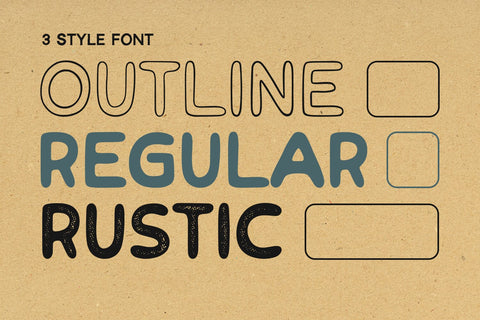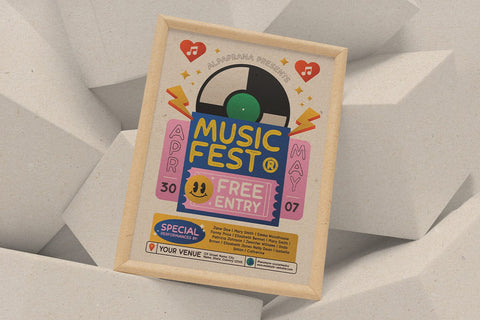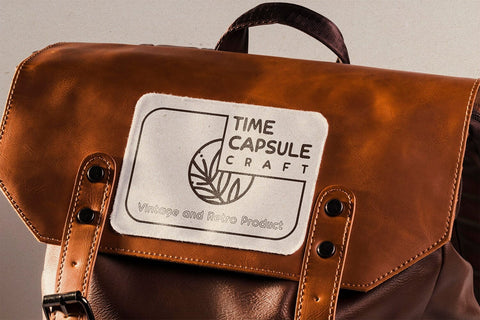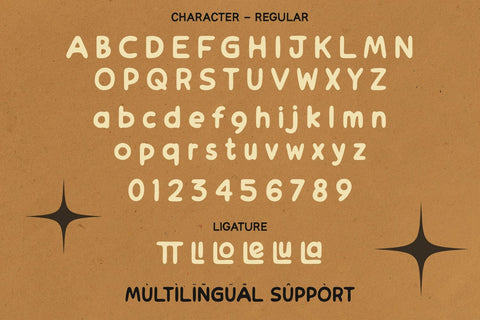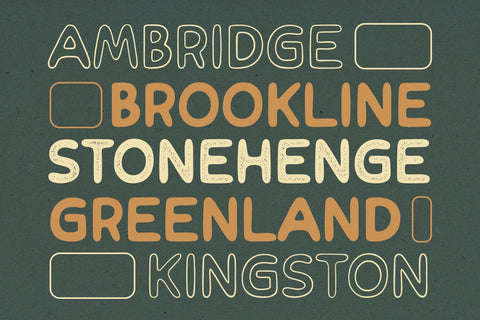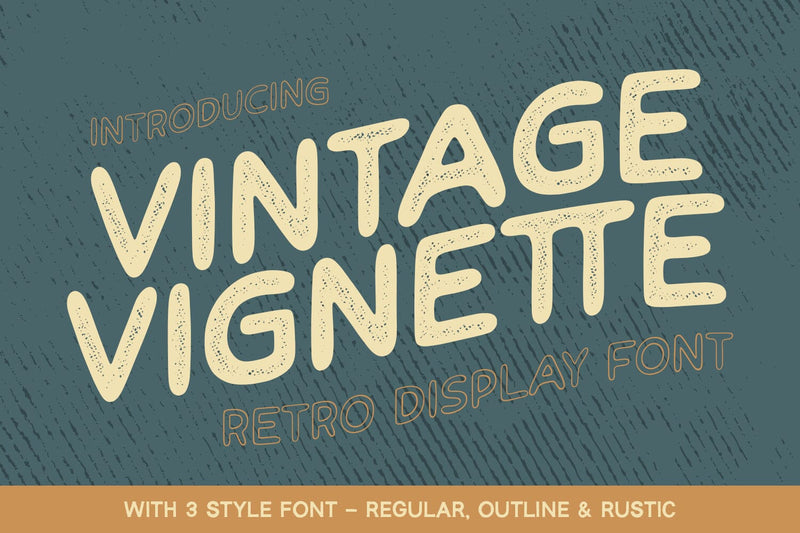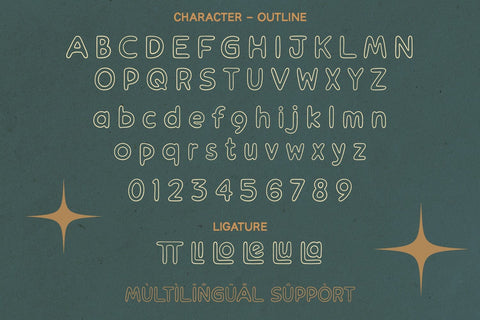
Vintage Vignette - Retro Font
Vintage Vignette is a retro font with authentic and classic feels. It will be perfectly used for Branding, Logo Design, Lettering, Logotype, Clothing, Poster, magazine, packaging, posters, shopping bags, t-shirts, book covers, photography, special events and other design project.